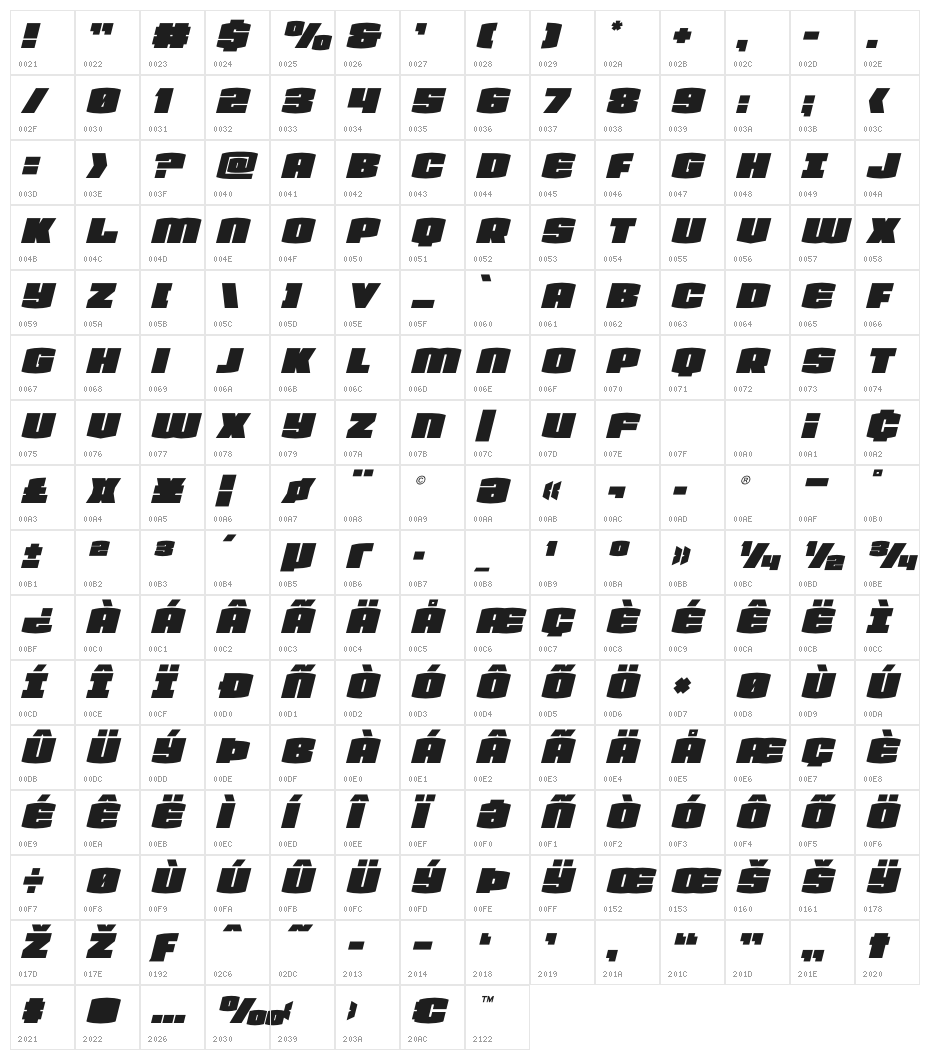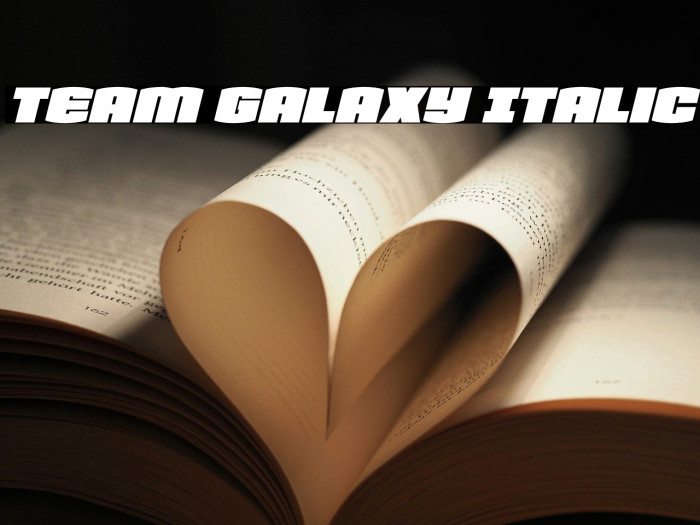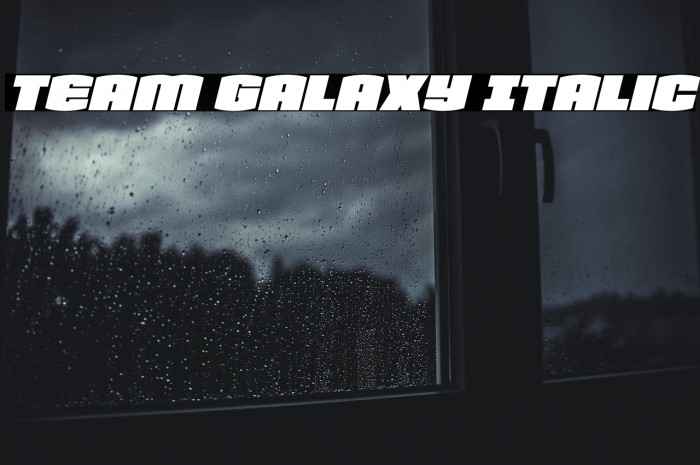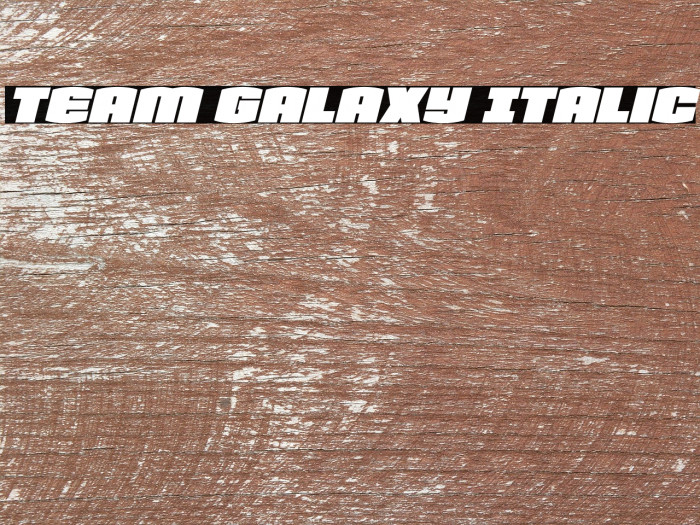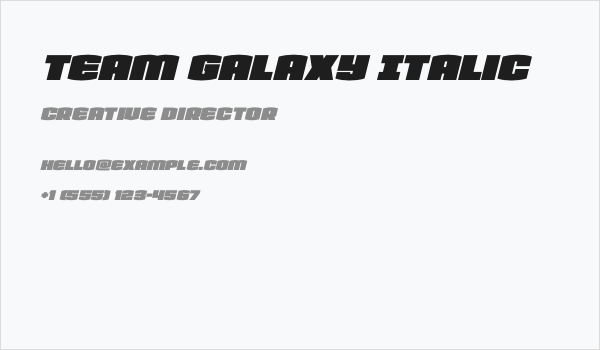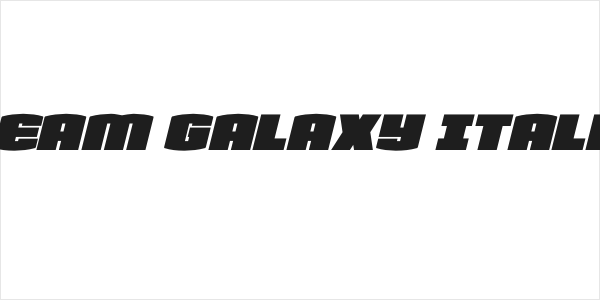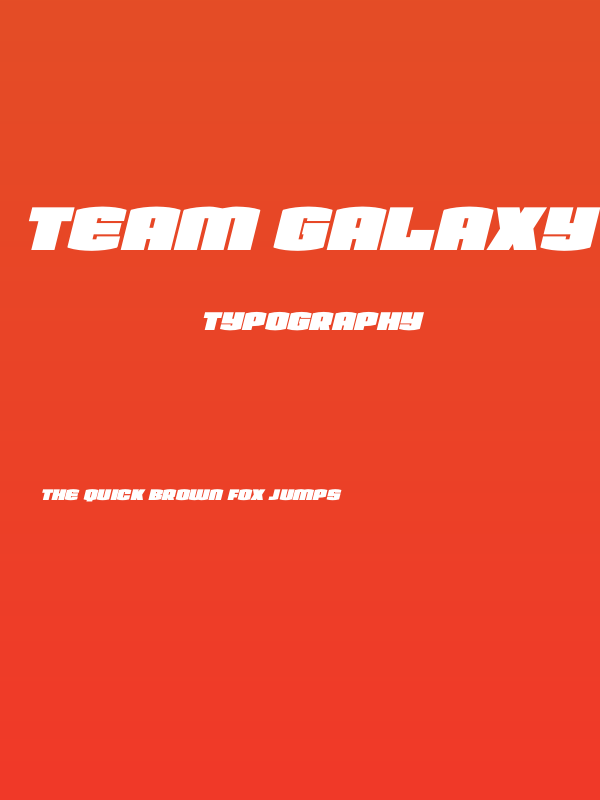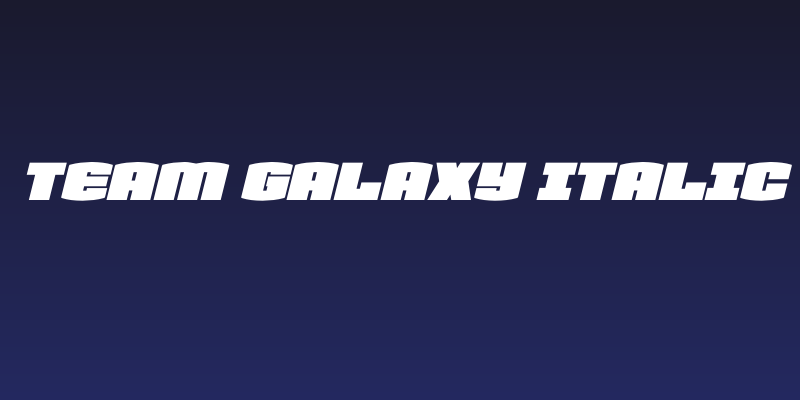
Team Galaxy Italic Font
Team Galaxy Italic Description
This font features a bold and dynamic style with a futuristic flair. The characters are italicized, giving them a sense of motion and speed. Each letter is constructed with thick, solid strokes that create a strong visual impact. The angular design and sharp edges contribute to its modern and edgy appearance. The numbers and special characters maintain the same boldness and angularity, ensuring consistency across all glyphs. This font is ideal for projects that require a striking and contemporary look.